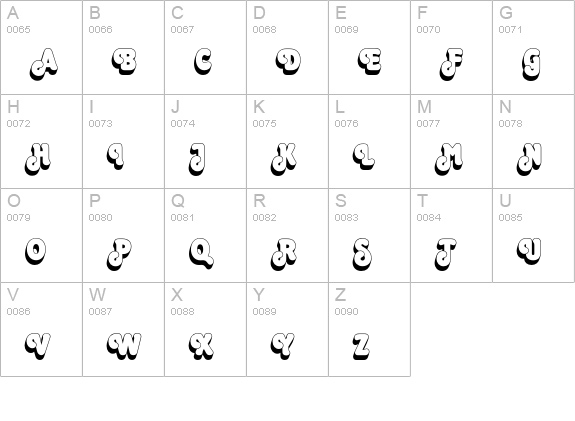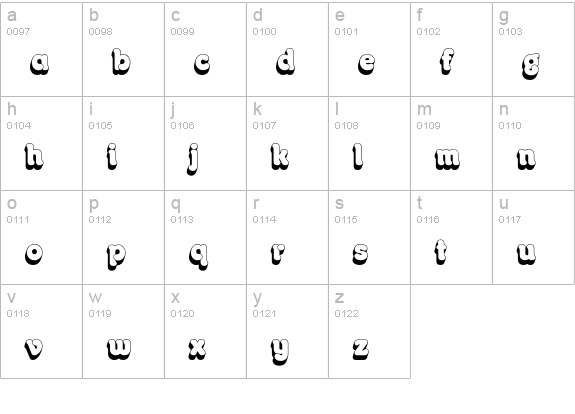
OctopussEF-Shaded Font Details
OctopussEF-Shaded is a striking and bold display font that exudes a sense of mystique and modernity. Its unique design combines sharp edges with smooth curves, creating a visually captivating style that is sure to make a statement. The shading effect adds depth and dimension to each letter, making them stand out on any design project. This font is perfect for headlines, posters, branding, and any project that requires a touch of sophistication and creativity. Whether you're designing a sleek logo or crafting a stylish social media post, OctopussEF-Shaded is sure to elevate your work to the next level. Best of all, OctopussEF-Shaded is completely free to download at FontsMarket.com. This means you can access this stunning font without any cost, making it a valuable addition to your font collection. Don't miss out on the opportunity to enhance your designs with the bold and eye-catching OctopussEF-Shaded font today!